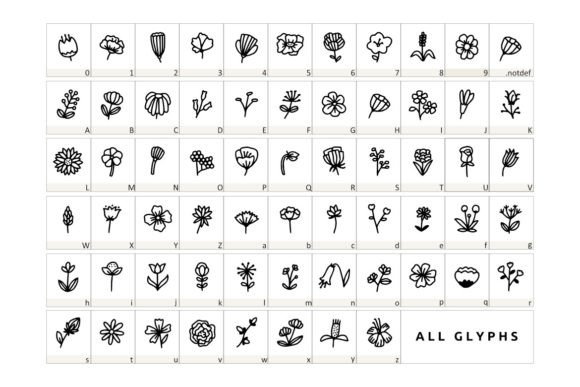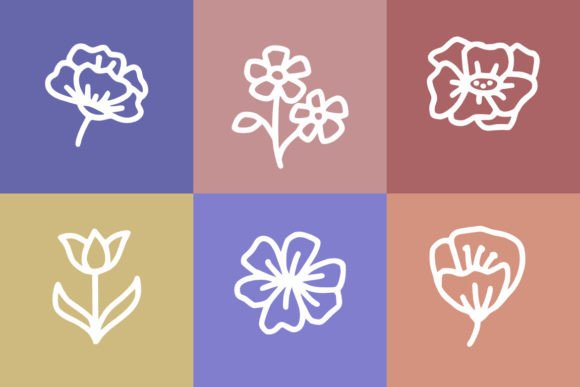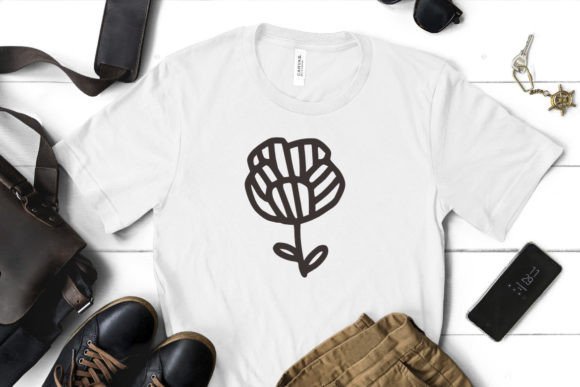
The Cute Flowers Font: A Delightful Dingbats Font for Creative Projects
Have you ever been working on a design project, and suddenly, you realize that it’s missing that special something? Maybe it’s a quirky font, a playful touch, or a dash of whimsy. I recall a project where I was tasked with creating a set of stickers for a children’s birthday party. I wanted a font that would bring a smile to the kids’ faces, but I was struggling to find the perfect one. That’s when I stumbled upon the Cute Flowers font, and it instantly became the star of the show! 🌼
An Honest Review of Cute Flowers Font
The Cute Flowers font is a fun and useful dingbats font perfect for a wide variety of projects. Here’s what I love about it:
- ✨ Cute and playful design: The font features adorable flower illustrations that add a touch of sweetness to any design.
- ✅ Versatile: It’s perfect for stickers, posters, t-shirts, cards, apparel graphics, and more.
While Cute Flowers is an excellent font, there are a few minor quirks to consider:
- 🤔 Limited character set: As a dingbats font, it doesn’t include a full range of alphabetic characters, so you might need to get creative with substitutions or use it in combination with another font.
- ⚠️ Occasional inconsistencies: Some users have reported slight inconsistencies in the font’s kerning and spacing, but these can usually be adjusted in your design software.
The Backstory Behind Cute Flowers
Cute Flowers was designed with one goal in mind: to bring a touch of joy and playfulness to creative projects. The font’s creator, a talented designer with a passion for illustration, was inspired by the simple beauty of flowers and the happiness they bring to people’s lives. The result is a font that’s both adorable and versatile, perfect for designers, crafters, and creative hobbyists alike.
| Font Name | Cute Flowers Font |
| Author | YandiDesigns |
| What type of projects is Cute Flowers best suited for? | Cute Flowers is perfect for a wide range of projects, including stickers, posters, t-shirts, cards, apparel graphics, and more. |
| Does Cute Flowers support OpenType features? | Yes, Cute Flowers supports OpenType features, including glyphs, stylistic alternates, and more. |